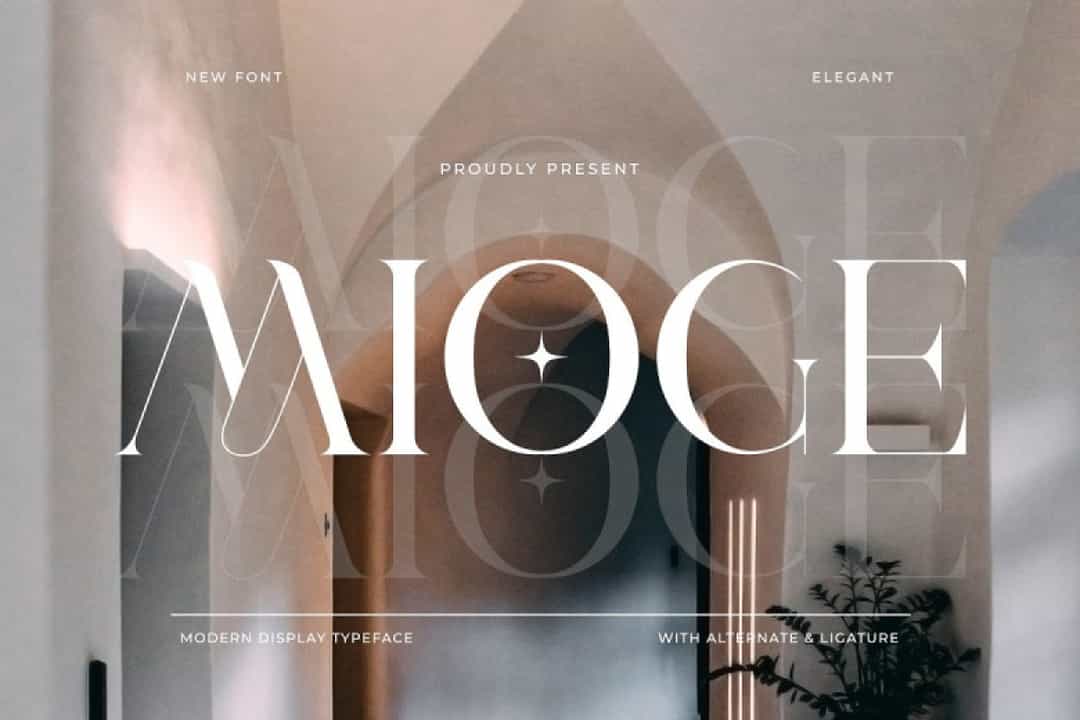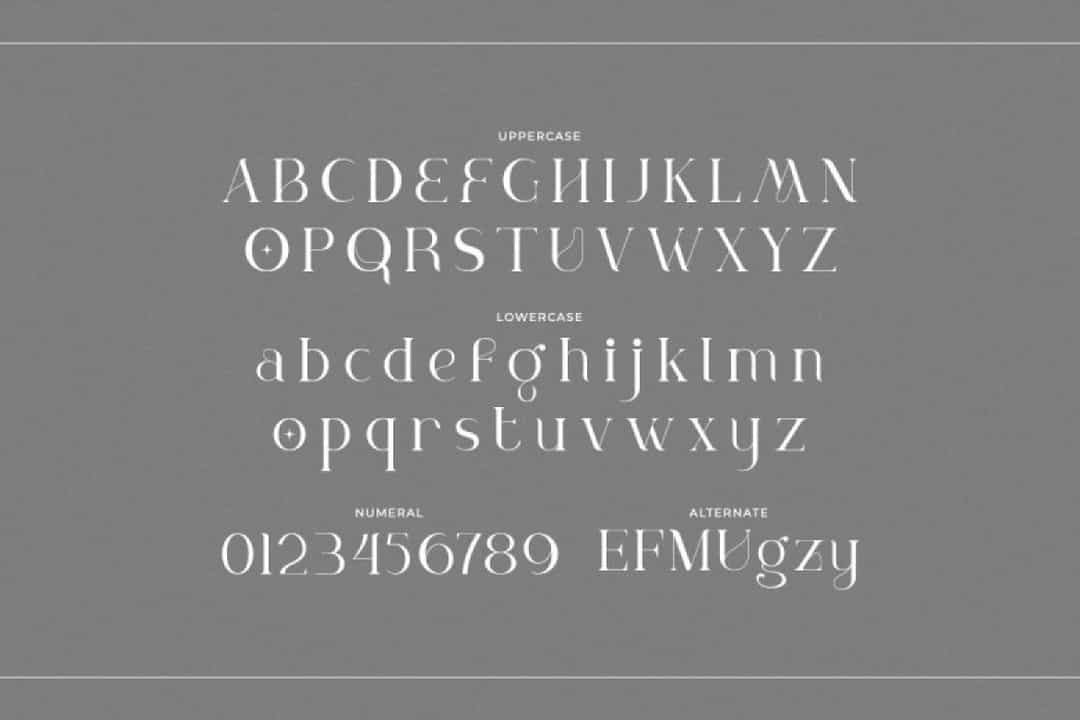
Mioge is a modern display font with contemporary flair. Beautifully designed, Mioge can easily blend in with an amazing variety of designs for maximum flexibility and striking appearance. Make use of Mioge for maximum style yet subtlety and maximum versatility!